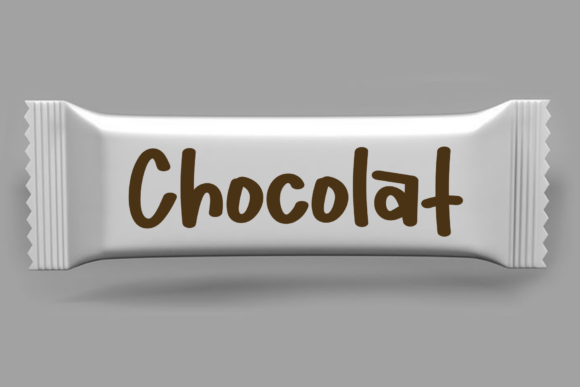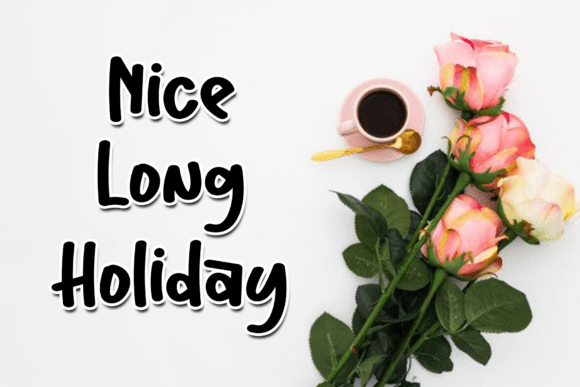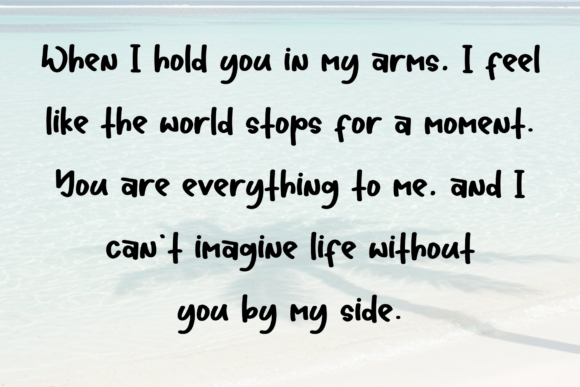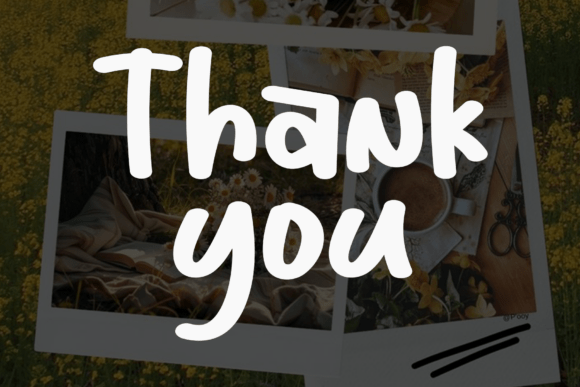
Introducing Happy Monday Font: The Perfect Addition to Your Design Arsenal
Are you tired of using the same old fonts in your designs? Do you want to add a touch of personality and whimsy to your planners, stickers, social media posts, and other creative projects? Look no further than Happy Monday Font, a cheerful and friendly handwritten font that’s sure to bring a smile to your face and a boost of positivity to your designs.
What is Happy Monday Font?
Happy Monday Font is a casual, energetic handwritten font with a unique and playful style. Its rounded edges and bouncy baseline give it a carefree and approachable feel that’s perfect for designers and crafters who want to add a personal touch to their work. Whether you’re creating planners, stickers, social media posts, or any other type of design, Happy Monday Font is the perfect choice.
Key Features of Happy Monday Font
- Cheerful and Friendly: Happy Monday Font is designed to be cheerful and friendly, making it perfect for designs that need a boost of positivity and approachability.
- Casual and Energetic: With its casual, energetic style, Happy Monday Font is ideal for designers and crafters who want to add a touch of personality to their work.
- Rounded Edges: The rounded edges of Happy Monday Font give it a soft and playful feel that’s perfect for designs that need to be approachable and friendly.
- Bouncy Baseline: The bouncy baseline of Happy Monday Font adds to its energetic and playful feel, making it perfect for designs that need to stand out.
Uses for Happy Monday Font
Happy Monday Font is a versatile font that can be used in a variety of design applications, including:
- Planners: Add a personal touch to your planners with Happy Monday Font, perfect for creating custom layouts and designs.
- Stickers: Use Happy Monday Font to create fun and colorful stickers that are perfect for planners, journals, and other creative projects.
- Social Media Posts: Add a touch of personality to your social media posts with Happy Monday Font, perfect for creating engaging and shareable content.
- Any Design: Happy Monday Font can be used in any design that needs a boost of positivity and approachability, making it a great addition to your design arsenal.
Why Choose Happy Monday Font?
There are many fonts to choose from, but Happy Monday Font stands out for its unique and playful style. Here are just a few reasons why you should choose Happy Monday Font for your next design project:
- Unique Style: Happy Monday Font has a unique and playful style that’s sure to set your designs apart from the rest.
- Easy to Read: Despite its playful style, Happy Monday Font is easy to read and understand, making it perfect for designs that need to communicate a message.
- Versatile: Happy Monday Font can be used in a variety of design applications, making it a great addition to your design arsenal.
In conclusion, Happy Monday Font is a cheerful and friendly handwritten font that’s perfect for designers and crafters who want to add a touch of personality to their work. With its rounded edges and bouncy baseline, Happy Monday Font is sure to bring a smile to your face and a boost of positivity to your designs. Whether you’re creating planners, stickers, social media posts, or any other type of design, Happy Monday Font is the perfect choice.